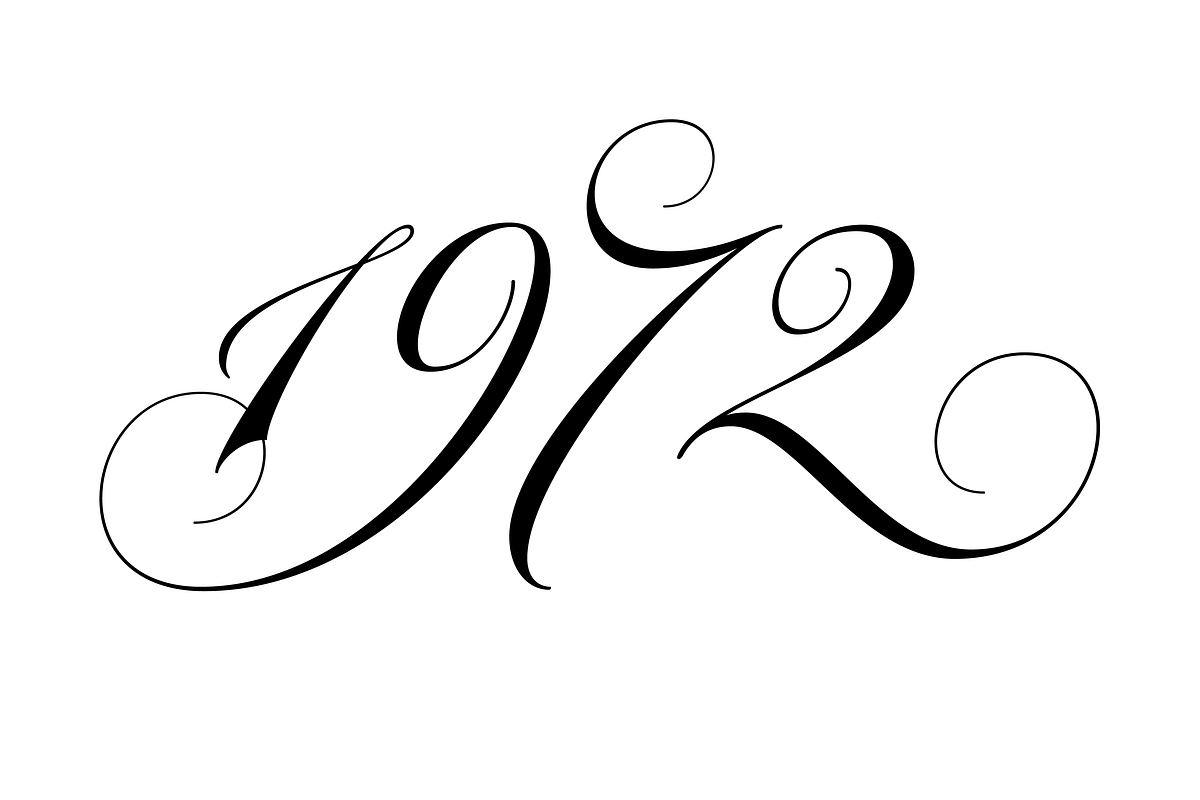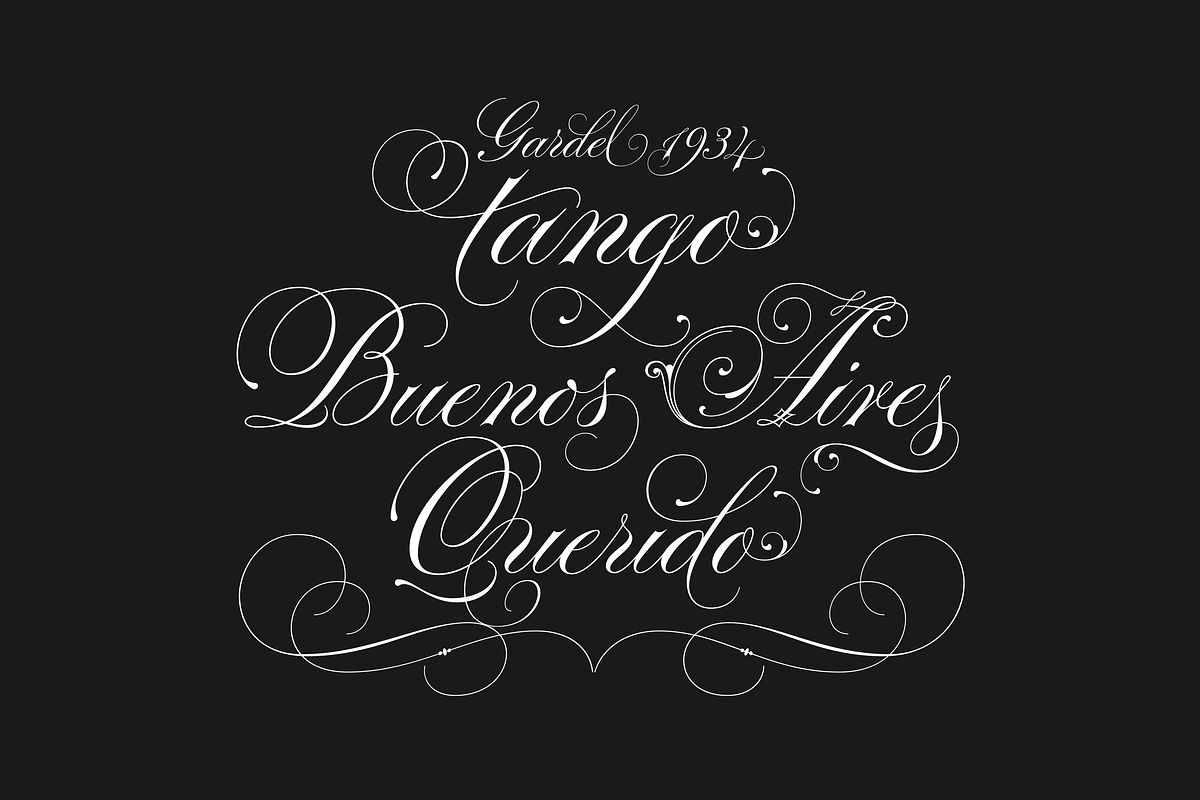
Parfumerie is a sophisticated calligraphic font defined by its smooth curves, clean lines and the finest of fine strokes. Graceful and refined in its most basic script form, a range of Swash and Decorative alternates (including a unique local style called Filete Porteño, an ornamental form native to Buenos Aires) allows users to elevate their designs to higher levels of aesthetic beauty and elegance.
It contains over 2500 glyphs, among which are swashes, ornaments and decorative alternates. Use professional software that widely support OpenType features.